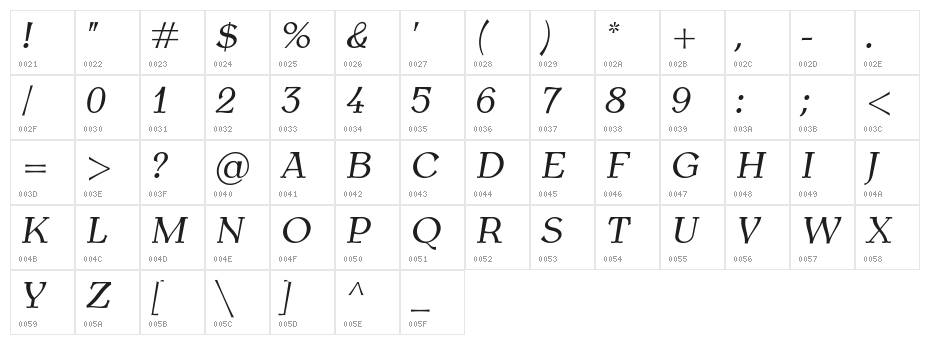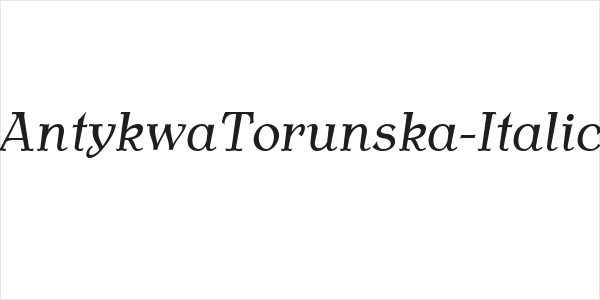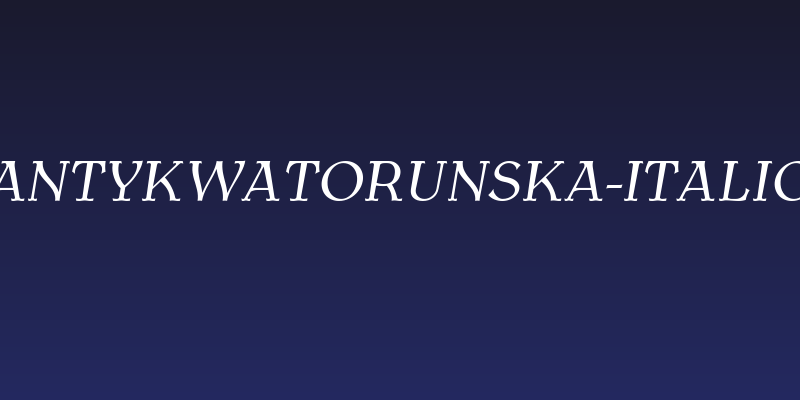
AntykwaTorunska-Italic Font
AntykwaTorunska-Italic Description
This font features a classic serif style with a distinct italic slant, giving it an elegant and sophisticated appearance. The characters are well-defined with moderate contrast between thick and thin strokes, enhancing readability while maintaining a stylish flair. The serifs are pronounced yet refined, contributing to a traditional aesthetic that is both timeless and versatile. The numerals and special characters are consistent with the overall design, ensuring uniformity across different text elements. This font's graceful curves and balanced proportions make it suitable for a variety of applications where a touch of elegance is desired.
| Proposed Projects | Ideal for book covers, formal invitations, branding materials, and editorial design. |